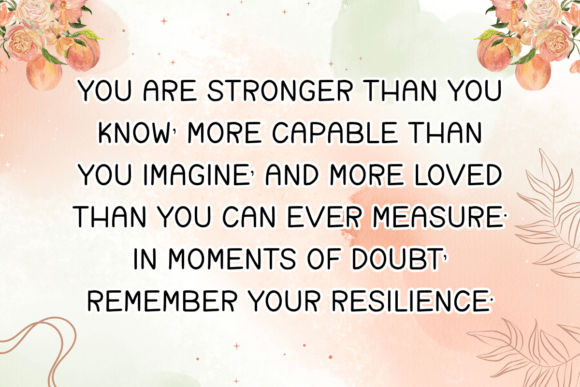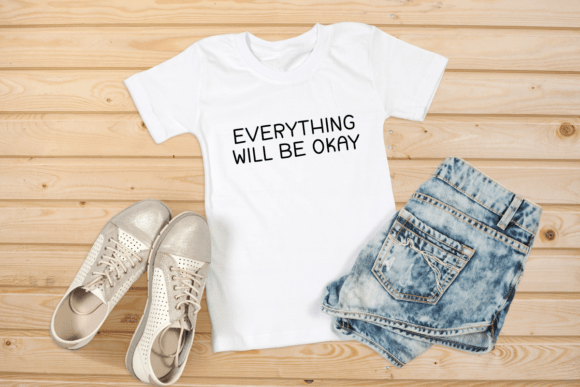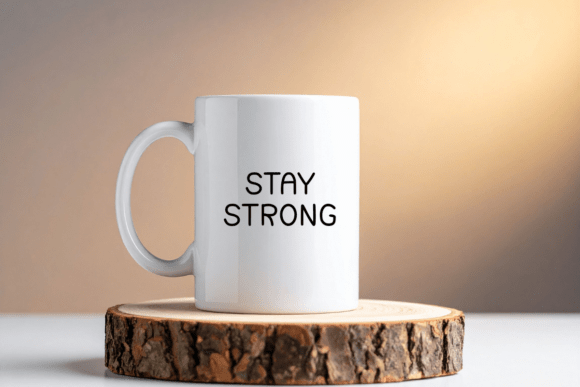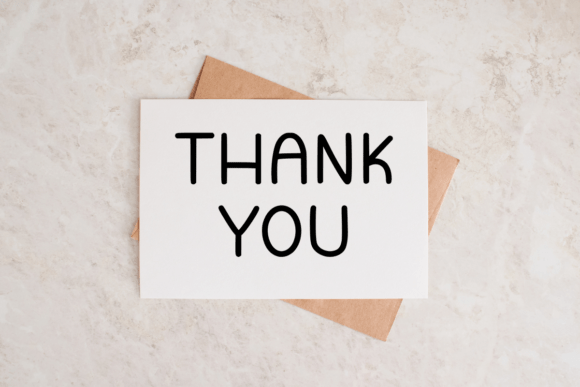
Introduction to Peach Font
Do you ever find yourself scribbling notes in a notebook or creating digital content, and wish you had a font that captured the warmth and playfulness of your handwriting? As designers, we’re always on the lookout for that special something that adds a touch of personality to our projects. That’s where the Peach Font comes in – a delightful, hand-written font that’s perfect for adding a personal touch to your designs.
With its soft, rounded edges and friendly feel, the Peach Font is an ideal design resource for a wide range of creative projects. Whether you’re creating birthday invitations, designing stickers, or crafting journal pages, this font is sure to bring a smile to your face and add a touch of whimsy to your work. And the best part? It’s available for free download, making it a valuable addition to any designer’s toolkit.
From planners and sticky notes to Canva templates and sublimation projects, the Peach Font is a high-quality design resource that’s sure to elevate your creative projects to the next level. So why settle for a generic font when you can add a dash of personality to your work with the Peach Font?
Peach Font Key Features
- High-quality, vector-based design resource for creative projects, available for free download.
- Unique, elegant font style with a transparent background, perfect for adding a touch of sophistication to any design.
- Features a large character set, including uppercase and lowercase letters, numbers, and punctuation marks, making it ideal for extended text.
- Designed to be highly scalable, with a resolution-independent design that looks great at any size, from small captions to large headlines.
- Perfect for use in graphic design, digital art, and other creative projects where a high-quality, unique font is required.
Honest Review: Peach Font
I recently stumbled upon the Peach Font, and I must say it’s a lovely addition to any design project. The Peach Font is a high-quality font that’s perfect for creating a warm and inviting atmosphere in your designs.
- ✨ The Peach Font has a very natural and organic feel to it, making it perfect for creative projects that require a sense of elegance and sophistication.
- ✨ The Peach Font is highly versatile and can be used for a variety of design projects, from logos to typography-based designs.
- ⚠️ The Peach Font is not ideal for designs that require a transparent background, as the font’s texture can be quite prominent.
Overall, the Peach Font is a great resource for designers who are looking for a high-quality, free font to add some elegance to their designs. While it may have some limitations, it’s a great addition to any design project.
To get the most out of Peach Font, use it with a transparent background to give your design a clean and minimalist look. You can also pair it with other high-quality fonts to create a unique and eye-catching design.
The Peach Font is perfect for use in a variety of creative projects, including:
- Editorial and publishing design